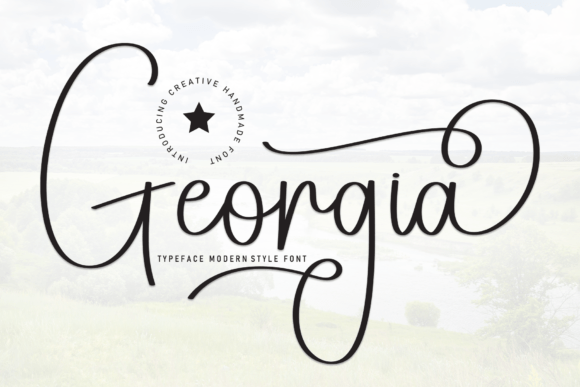
Adorn your creative projects with the enchanting Georgia Font, a script font crafted to evoke elegance and charm. Let your imagination run wild as you explore the realm of doodle notes, transforming ordinary text into captivating works of art. Georgia Font is not just a font; it's an invitation to unleash your inner artist and add a touch of whimsy to your creative endeavors.
Dive into the world of doodle notes and let Georgia Font guide you on an artistic journey. Express your thoughts and ideas with a unique blend of words and illustrations, creating visual masterpieces that capture the essence of your imagination. Whether you're a seasoned doodle note artist or just starting, Georgia Font will elevate your creations to new heights.
With Georgia Font, transform your social media posts, wedding invitations, product packaging, and logos into captivating works of art. Its delicate curves and elegant strokes add a touch of sophistication to any project, making it the perfect choice for those seeking an eye-catching and memorable design.
Georgia Font is more than just a font; it's a creative companion that ignites your artistic spark. Let your imagination soar as you explore the boundless possibilities of doodle notes, creating visual masterpieces that tell your stories and captivate your audience. Embark on this creative journey today and let Georgia Font guide you to artistic greatness.
- Delicate and elegant script font
- Perfect for doodle notes, wall displays, wedding invitations, social media posts, logos, advertisements, product packaging, product designs, labels, photography, watermarks, invitations, stationery, and any project that requires tasteful handwriting.
- Adds a touch of elegance and charm to any creative project
- Easily create captivating doodle notes that express your thoughts and ideas
- Transform social media posts, wedding invitations, product packaging, and logos into works of art